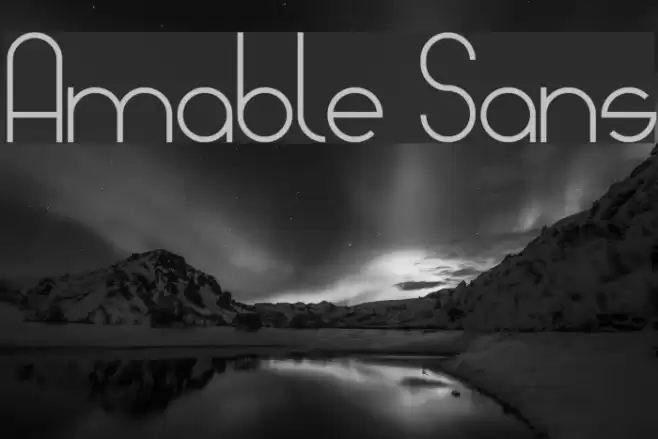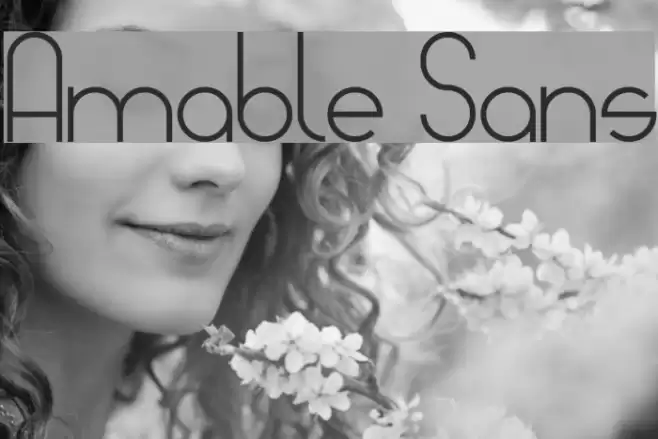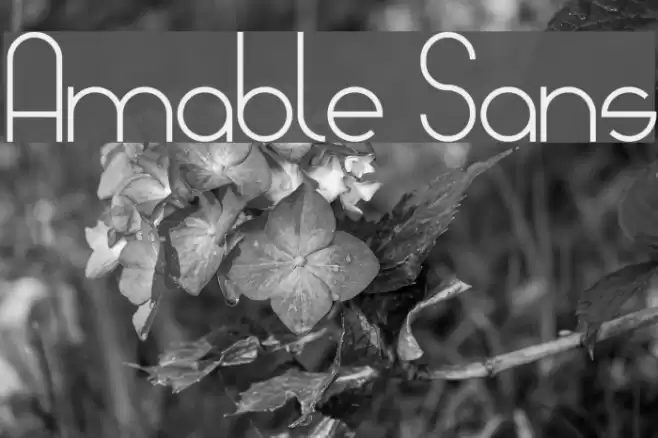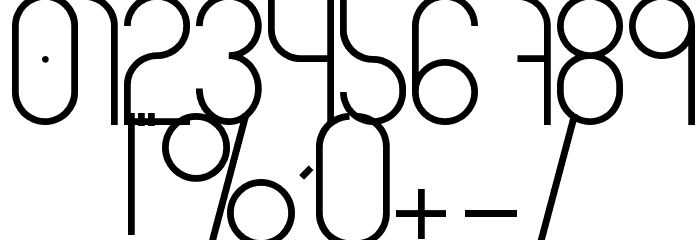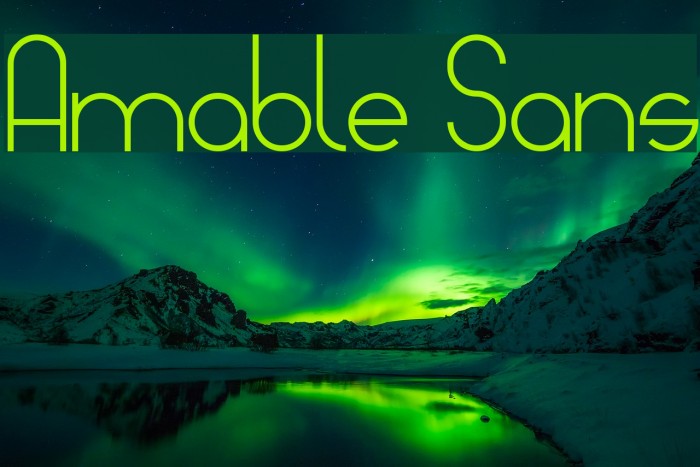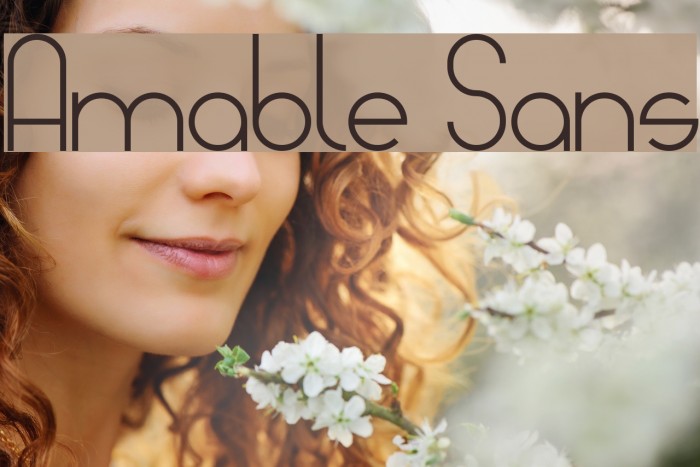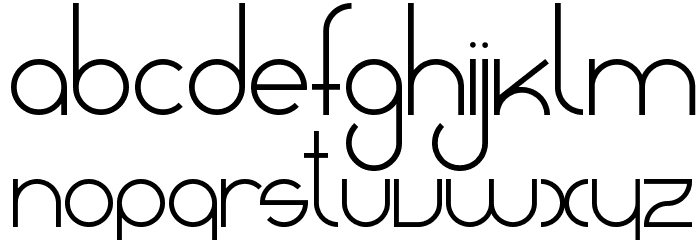
Amable Sans Font
Amable Sans Description
This font features a modern and sleek design with a geometric structure. The characters are constructed with clean lines and rounded edges, giving it a contemporary and minimalist appearance. The uppercase letters are tall and narrow, while the lowercase letters maintain a consistent height, enhancing readability. The numerals are distinct and align well with the overall style, making them suitable for various applications. Special characters are designed with the same attention to detail, ensuring a cohesive look across all elements. The font's simplicity and elegance make it versatile for both digital and print media.
A modern, geometric font with clean lines and rounded edges from Uncategorized fonts.
- Proposed Projects: Ideal for branding, advertising, web design, and editorial layouts.